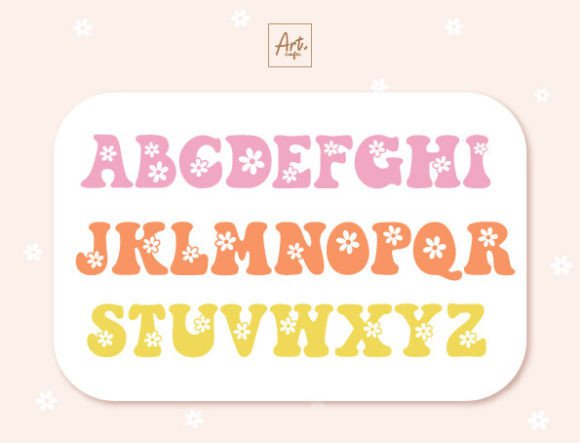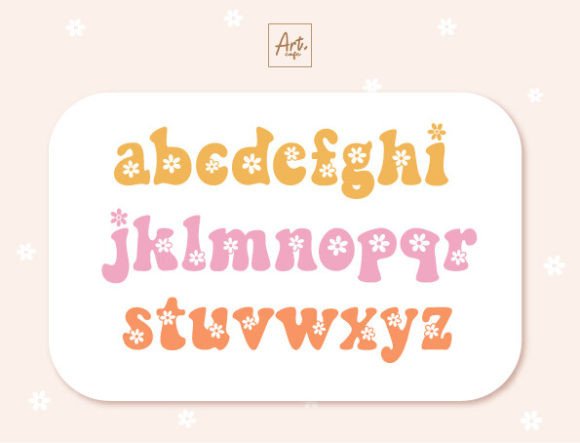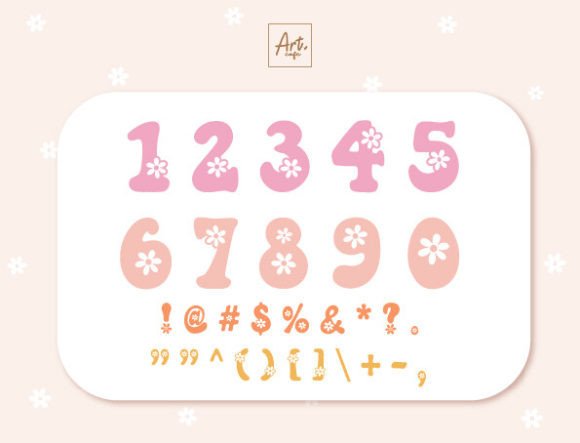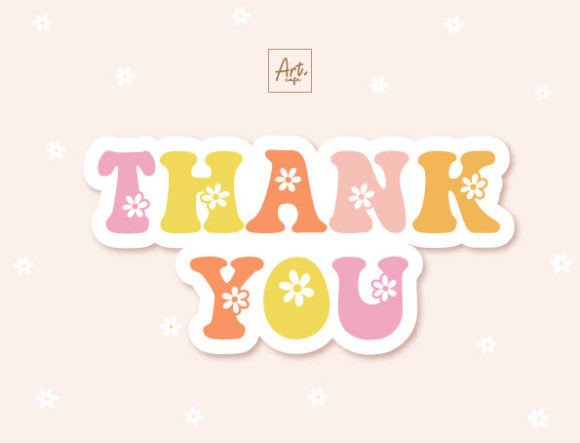
Discover the Charm of Groovy Flower Font: A Springtime Design Delight
Ah, the joys of searching for the perfect font for a design project! I recall a particularly frustrating experience when I was working on a spring-themed poster for a client. I had a clear vision of a bold, playful, and retro-style font that would bring the design to life, but my usual go-to fonts just weren’t cutting it. That’s when I stumbled upon the Groovy Flower font, and it instantly became the perfect fit. In this article, I’ll share my love for this font, its features, and provide a comprehensive guide on how to use it in various design platforms.
A Personal Review: What I Love About Groovy Flower Font
Here’s what makes Groovy Flower font a standout:
- ✨ Cute and playful design that’s perfect for spring-themed projects
- ✅ Bold and eye-catching, making it ideal for display fonts
- 🌼 Retro-style charm that adds a unique touch to any design
- 📚 Support for all English language characters, making it versatile for various projects
While Groovy Flower font is an excellent choice, there are a few minor limitations to consider:
- 🤔 Limited use for formal or professional projects due to its playful nature
- ⚠️ May not be suitable for very small font sizes as some details may get lost
Groovy Flower font was inspired by the retro-style designs of the 1960s and 1970s. The designer aimed to create a bold, playful font that captures the essence of springtime and the carefree spirit of the era. With its unique blend of modern and vintage elements, Groovy Flower font is sure to bring a touch of nostalgia and whimsy to any design project.
| What is the best use for Groovy Flower font? | Groovy Flower font is perfect for creative projects like posters, t-shirts, mugs, kid’s projects, planners, stickers, and home decor. |
| Is Groovy Flower font suitable for formal projects? | No, Groovy Flower font is better suited for informal or playful projects due to its bold and playful nature. |
| Does Groovy Flower font support non-English characters? | Groovy Flower font supports all English language characters, but it’s best to check with the designer or font documentation for non-English character support. |